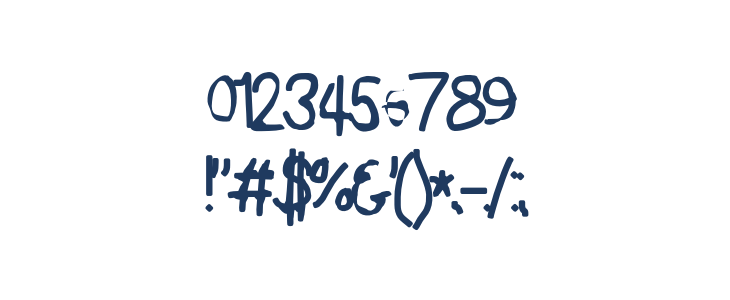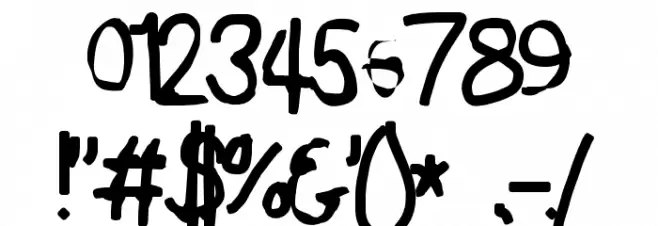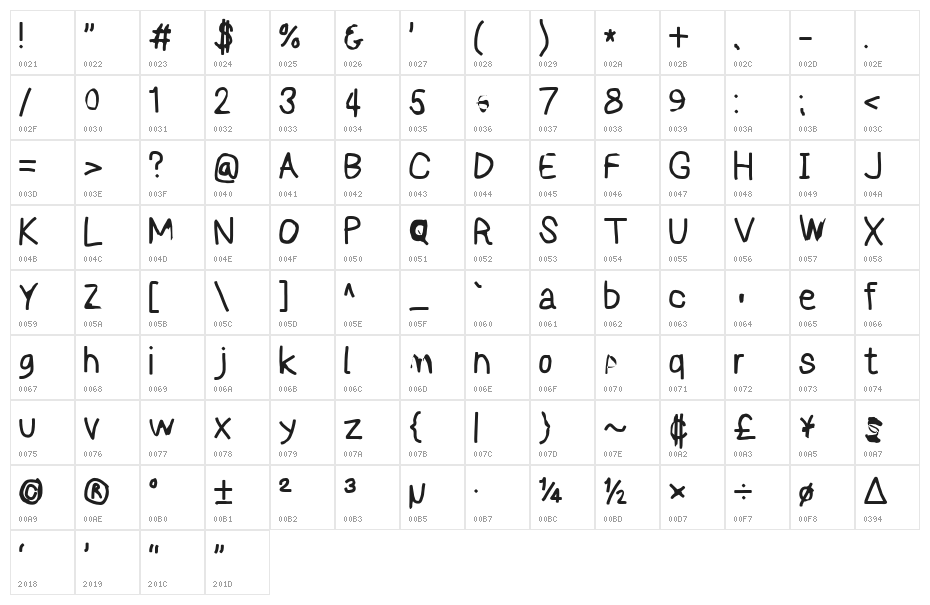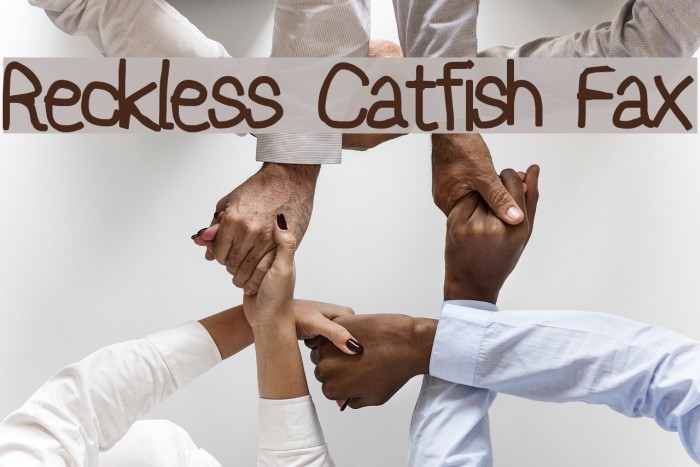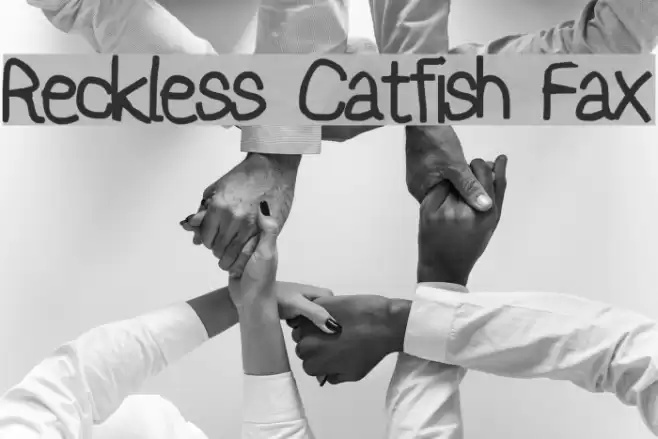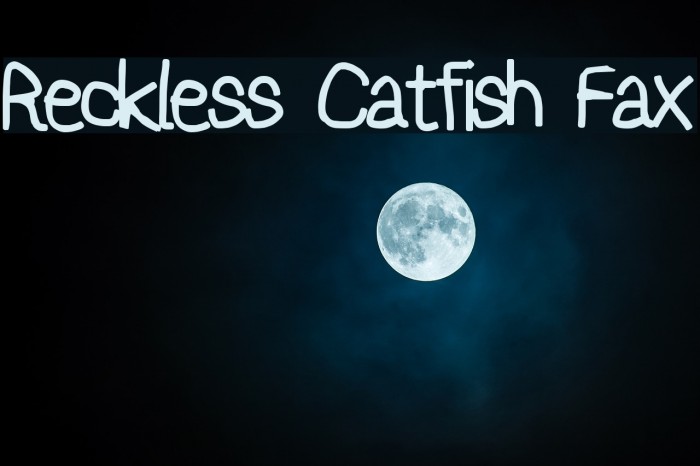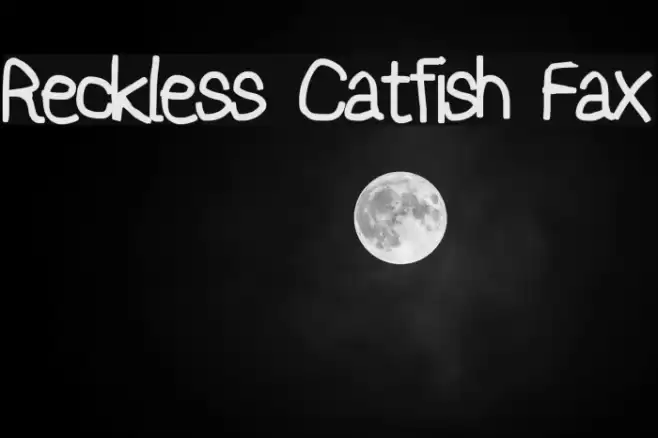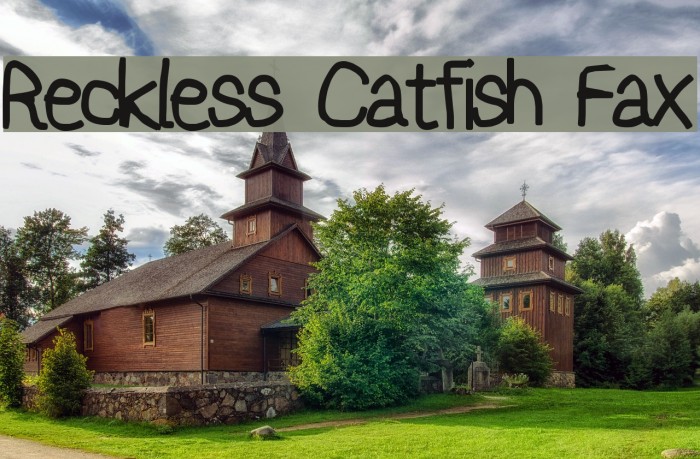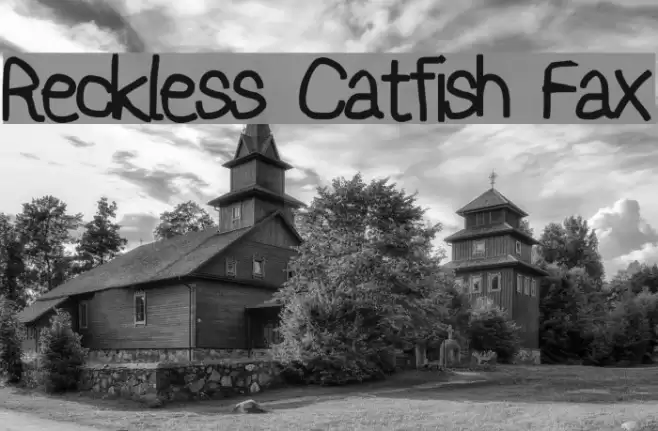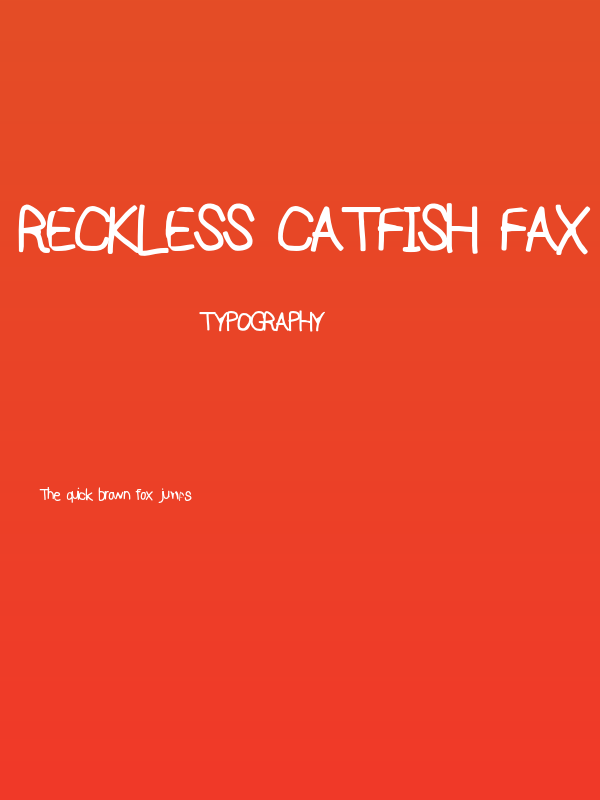
Reckless Catfish Fax Font
Reckless Catfish Fax Description
This font features a playful and informal handwritten style, characterized by its bold and uneven strokes. The letters have a casual, almost doodle-like appearance, with varying heights and widths that give it a dynamic and energetic feel. The uppercase and lowercase letters maintain a consistent style, while the numbers and special characters are equally expressive, adding to the font's whimsical charm. The overall design is reminiscent of a child's handwriting, making it perfect for projects that require a touch of fun and creativity.
| Overall Style | Playful, Casual |
| Proposed Projects | Ideal for children's books, playful branding, casual invitations, and creative posters. |